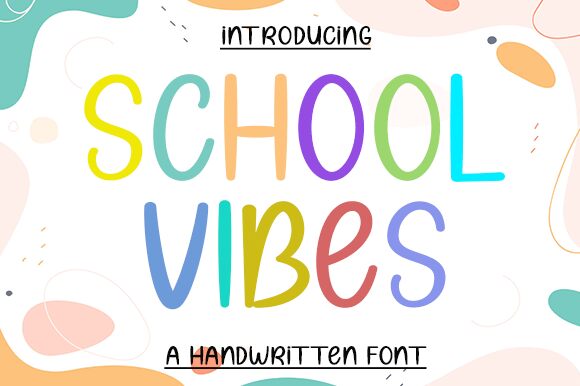
School Vibes
School Vibes, a creation of Wahyu Studio, is a handwritten font that exudes charm and personality. Its fluid, casual strokes evoke memories of notes passed between friends and whiteboards filled with lively discussions. The School Vibes font's aesthetic appeal lies in its perfect balance between legibility and informality, making it an ideal choice for projects aiming to capture the essence of youthfulness and education.
The playful irregularities in its letterforms give it a human touch that digital typefaces often lack, while still maintaining an organized rhythm that ensures readability. This makes School Vibes not only visually engaging but also versatile for various applications—be it whimsical book covers, engaging educational materials or vibrant branding for youth-centric initiatives.
With its blend of casual elegance and functional design, School Vibes stands out as a font that can add character to any creative project while resonating with audiences who appreciate a personal touch.